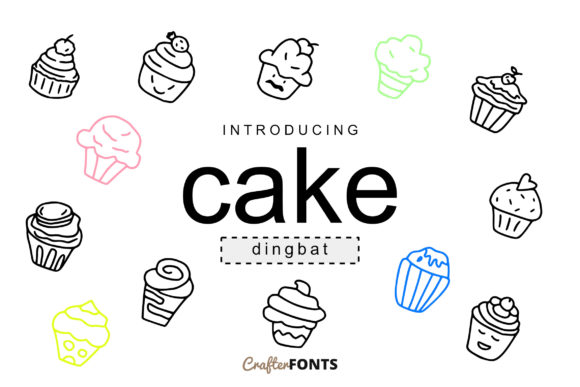
Journey into the enchanting world of Cake Doodle Font, a quirky and eye-catching dingbats font that will transform your creative visions into captivating realities. Unlock a treasure trove of 62 symbols, each meticulously crafted to evoke the delightful essence of cupcakes and sweet treats. Let your imagination soar as you effortlessly design logos, ornaments, and a myriad of creations that radiate joy and whimsy.
Indulge in the delectable charm of Cake Doodle Font, a culinary delight for the eyes. Its playful glyphs, reminiscent of freshly baked cupcakes adorned with colorful frosting and sprinkles, will add a touch of sweetness to your designs. Imagine the possibilities: whimsical invitations that tantalize the taste buds, eye-catching social media posts that leave a lasting impression, and packaging designs that entice customers with their irresistible charm.
Experience the versatility of Cake Doodle Font, a culinary chameleon that adapts effortlessly to diverse projects. Its delectable symbols seamlessly blend with culinary themes, adding a dash of flavor to menus, recipe books, and food blogs. Venture beyond the kitchen and explore the boundless creative possibilities: design enchanting nursery posters, create personalized greeting cards, or craft unique home décor items that exude warmth and personality.
Embrace the boundless creativity of Cake Doodle Font, a culinary canvas that awaits your artistic touch. Unleash your inner artist and embark on a culinary adventure, where each design is a delectable masterpiece. Let Cake Doodle Font be your secret ingredient, transforming ordinary designs into extraordinary creations that leave a lasting impression.